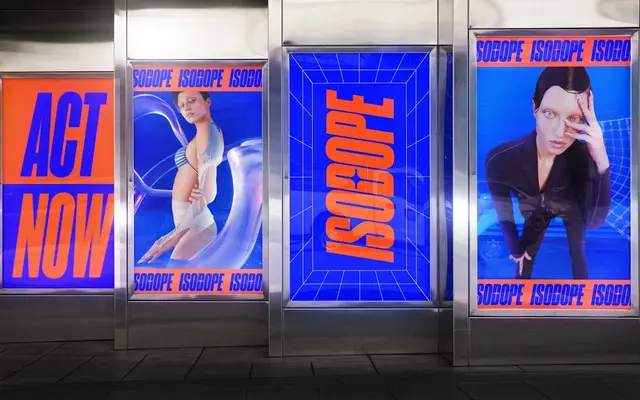
F37 Judge
A wide-ranging geometric sans system across four widths and global scripts, drawn to dominate at XL sizes.
A geometric sans system by Rick Banks, built across four widths from Compressed to Extended with four weights from Thin to Bold and matching italics, for 32 Latin styles. The family extends across Arabic, Cyrillic, Greek, Hebrew and Thai. F37 frame the design around poster scale and broadcast graphics, citing names like Cowell, Walsh and Osbourne to suggest the family's tabloid-strength voice. Suits identity for sport, broadcast, music and entertainment, plus signage and editorial at large sizes.
F37 describe Judge as a versatile, impactful geometric sans that really looks the part in XL sizes. The family extends across four widths from Compressed to Extended, designed to dominate at billboard scale.